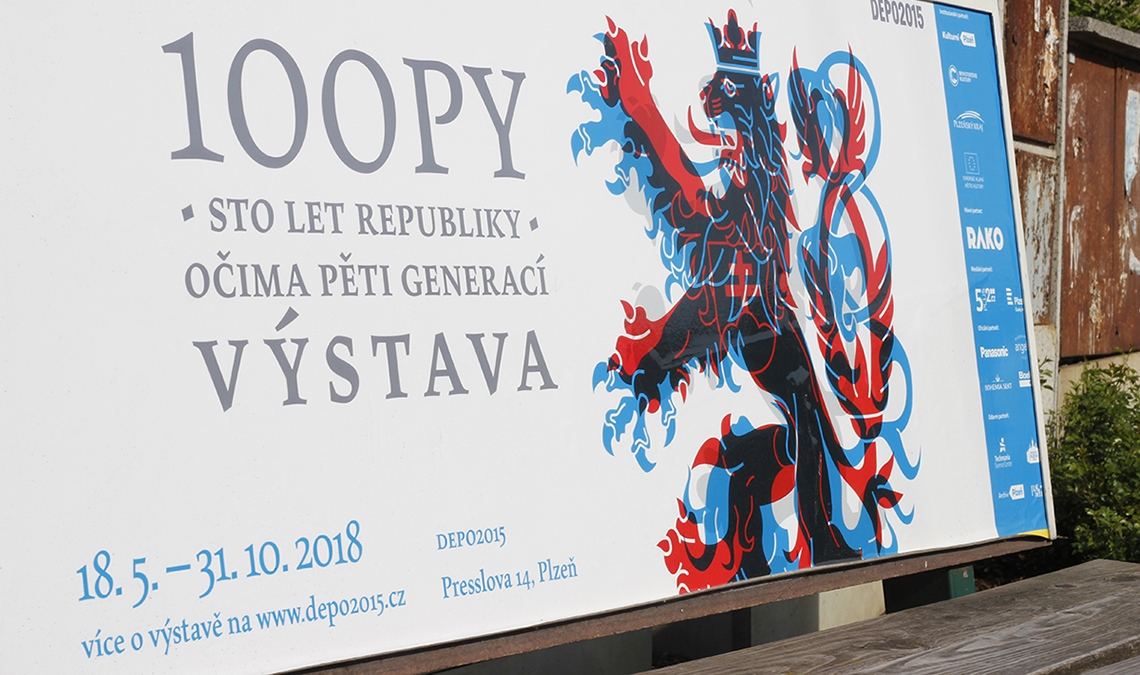
Maiola in use in100PY exhibition
An 2018 exhibition presents 100 years of Czechoslovak history through the eyes of five generations of one family.
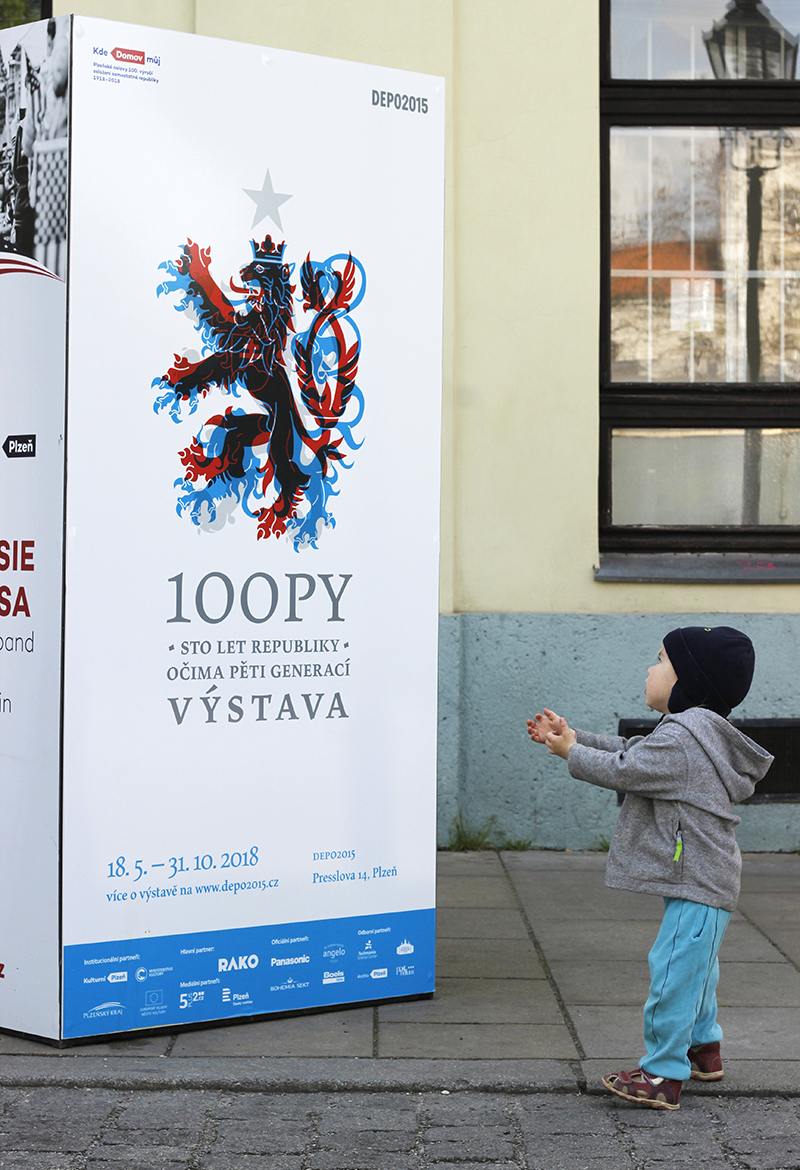
In 2018, to commemorate the centennial of the founding of Czechoslovakia, a unique exhibit was organized to bring the country’s history closer to people. The exhibition, titled ‘100py’ [a play on words in Czech meaning footprints] told the story of the country through five generations of the fictitious Němcova family from the Czech city of Pilsen.
The exhibition, which had the subtitle ‘One hundred years of the Republic as seen by five generations, made extensive use of our Maiola typeface.
Visitors were able to walk through the exhibition at the DEPO2015 culture hub in Pilsen, look at period objects and think about the dilemmas that five generations of the family had to solve. It’s actually three exhibitions in one, said exhibition curator Jiří Sulženko.
Maiola, designed by Veronika Burian, was selected as the main typeface of the event visual material. It was seen on the brand, the signage, and exhibition.
Maiola is a contemporary typeface that is mindful of its heritage. It is intended for high-quality printed text and thus handles its expressive tendencies with care to equalise the important issues of legibility and personality. Its glyphs have purposeful and subtle irregularities which enhance its dynamic spirit.